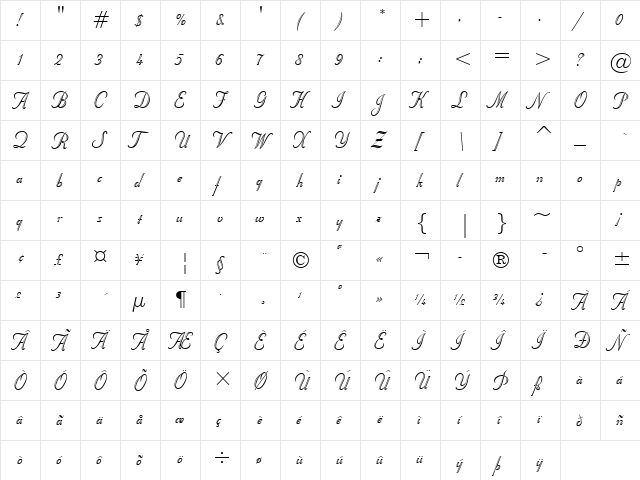
Stuyvesant BT Regular
Design Context for Stuyvesant BT Typeface
Stuyvesant BT is a composed and adaptable typeface that performs quietly and consistently across a wide range of design contexts.